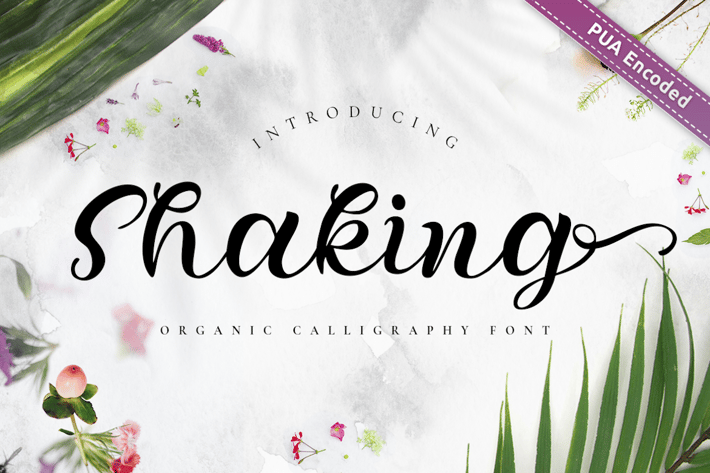
Shaking - Organic Calligraphy Font
Shaking Organic Challigraphy
Shaking Organic Challigraphy script is perfect font pairing with tails alternates character.
Shaking Organic Challigraphy script is a modern hand lettering script. It's allowing you to create beautiful hand-made typography
in an instant.
+ with Swash